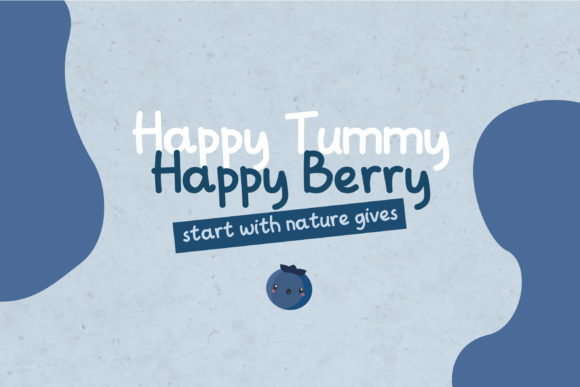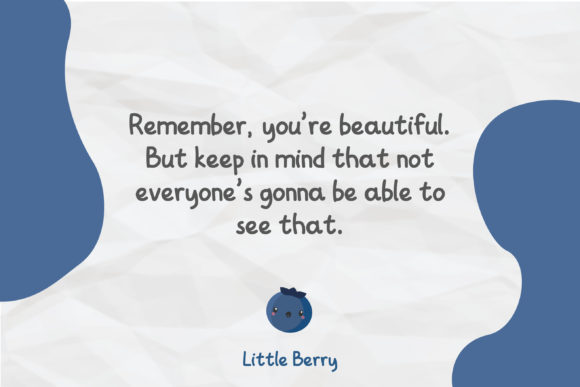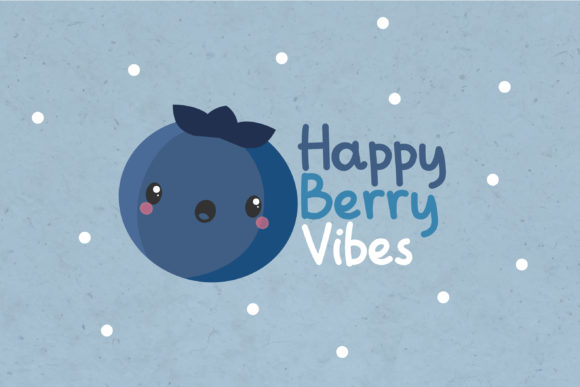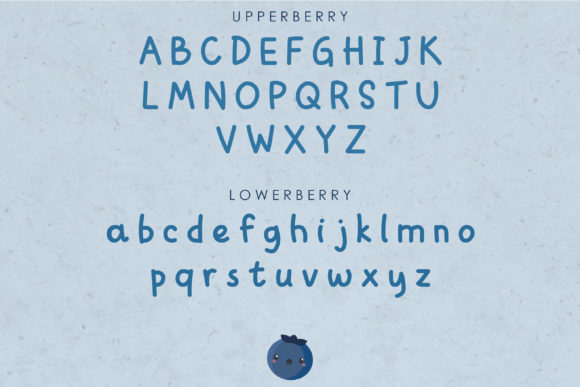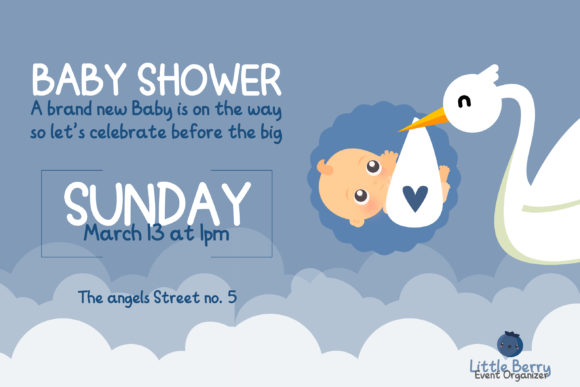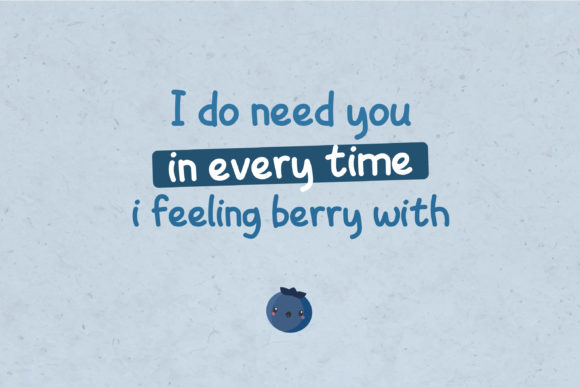
Discover the Sweet Charm of Blueberry Eyes Font
Have you ever stared at a blank canvas, wondering where to start, only to be inspired by the simplest of things? Maybe it’s a cup of coffee, a sunset, or even a quirky font that sparks your creativity. For designers, finding that perfect font can be the difference between a good project and a great one. That’s where Blueberry Eyes Font comes in – a whimsical script font that adds a touch of relaxed charm to any creation.
This adorable font is perfect for designers looking to add a playful twist to their work. Whether you’re creating a children’s book, a wedding invitation, or a social media graphic, Blueberry Eyes Font is sure to elevate your design and leave a lasting impression. Its cute style and versatility make it an invaluable asset to any font library.
- Unique Characteristics: The font features a distinctive, stylized design with a unique blend of modern and vintage elements, making it ideal for creative and artistic projects.
Designer Review: Blueberry Eyes Font
Overall, I’m a bit torn about the Blueberry Eyes Font. On one hand, it’s a unique and eye-catching choice that can add a touch of whimsy to your designs. ✨ The font’s irregularities and subtle imperfections give it a handmade feel that can work well in creative projects or branding for companies with a quirky personality.
- It’s great for adding visual interest to headings or titles, as the font’s bold and playful nature can draw attention.
- It can be used effectively in children’s books, magazines, or other publications that require a fun and lighthearted tone.
However, there are some limitations to consider. ⚠️ The font can be a bit overwhelming when used in large blocks of text, as its irregularities can create visual fatigue. Additionally, the font’s unique character set can make it difficult to read in certain situations, such as when used in smaller font sizes or in combination with other fonts.
Overall, I think the Blueberry Eyes Font is best suited for projects where a bold and playful look is desired, but it should be used judiciously to avoid overwhelming the viewer.
Tip: Use Blueberry Eyes Font to add a whimsical touch to your designs, especially for titles and headings.
Blueberry Eyes Font is ideal for:
- Children’s products and packaging
- Whimsical and playful designs